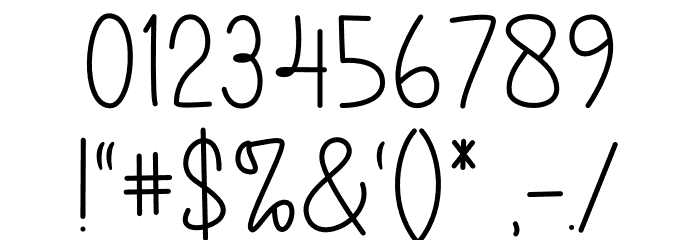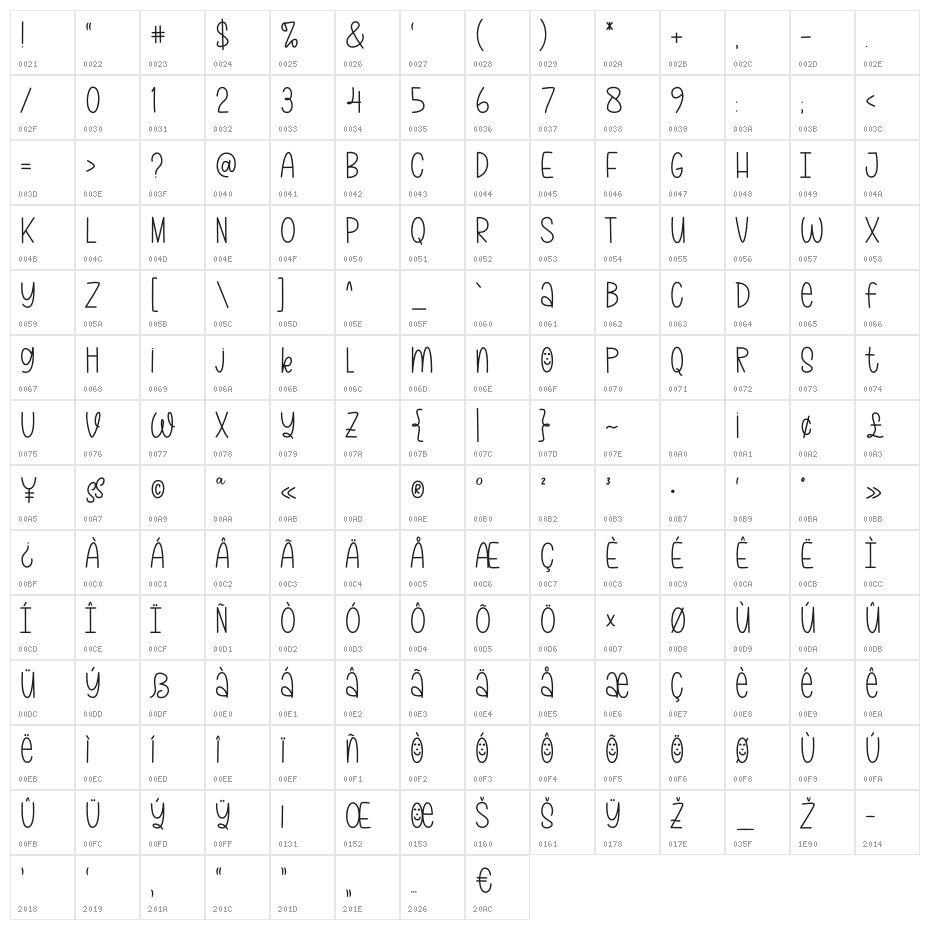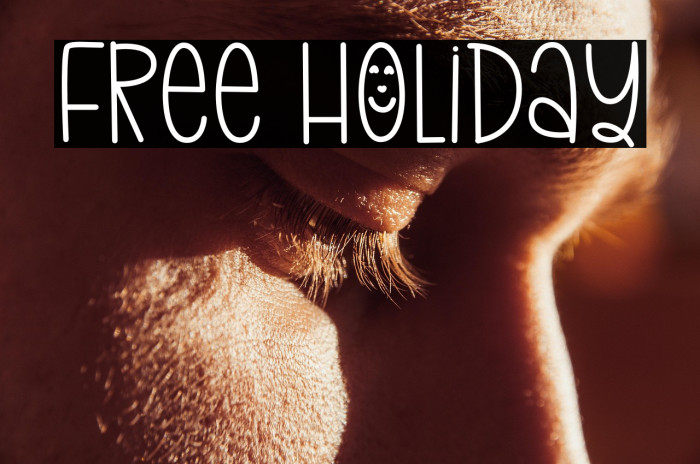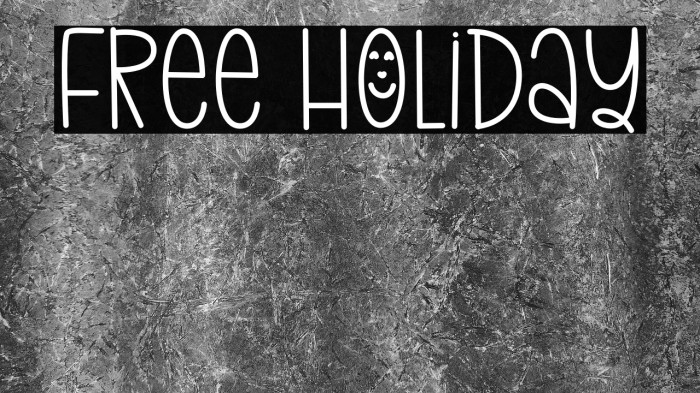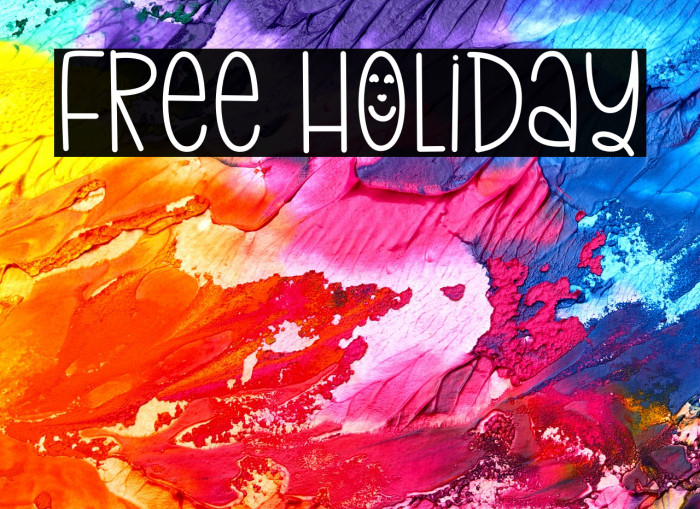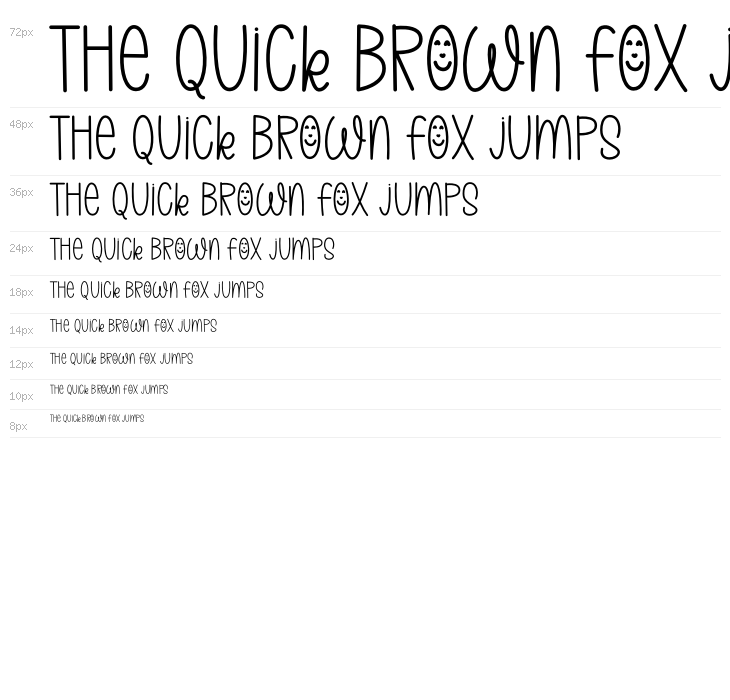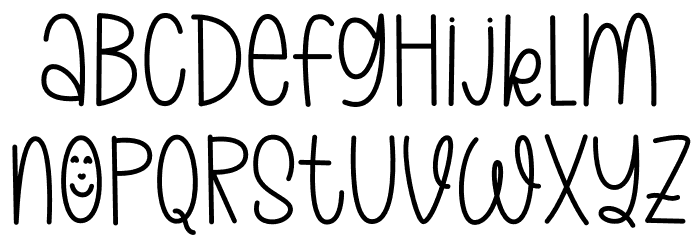
Free Holiday Font
Free Holiday Description
This playful and whimsical font features tall, narrow letters with a hand-drawn appearance. The characters are slightly irregular, adding a charming and informal feel. The uppercase and lowercase letters maintain a consistent style, with rounded edges and smooth curves. Numbers and special characters are included, matching the overall aesthetic. The font's design is approachable and friendly, making it suitable for casual and creative projects. Its unique style stands out, offering a sense of fun and lightheartedness.
| Proposed Projects | Ideal for children's books, greeting cards, playful branding, and DIY projects. |